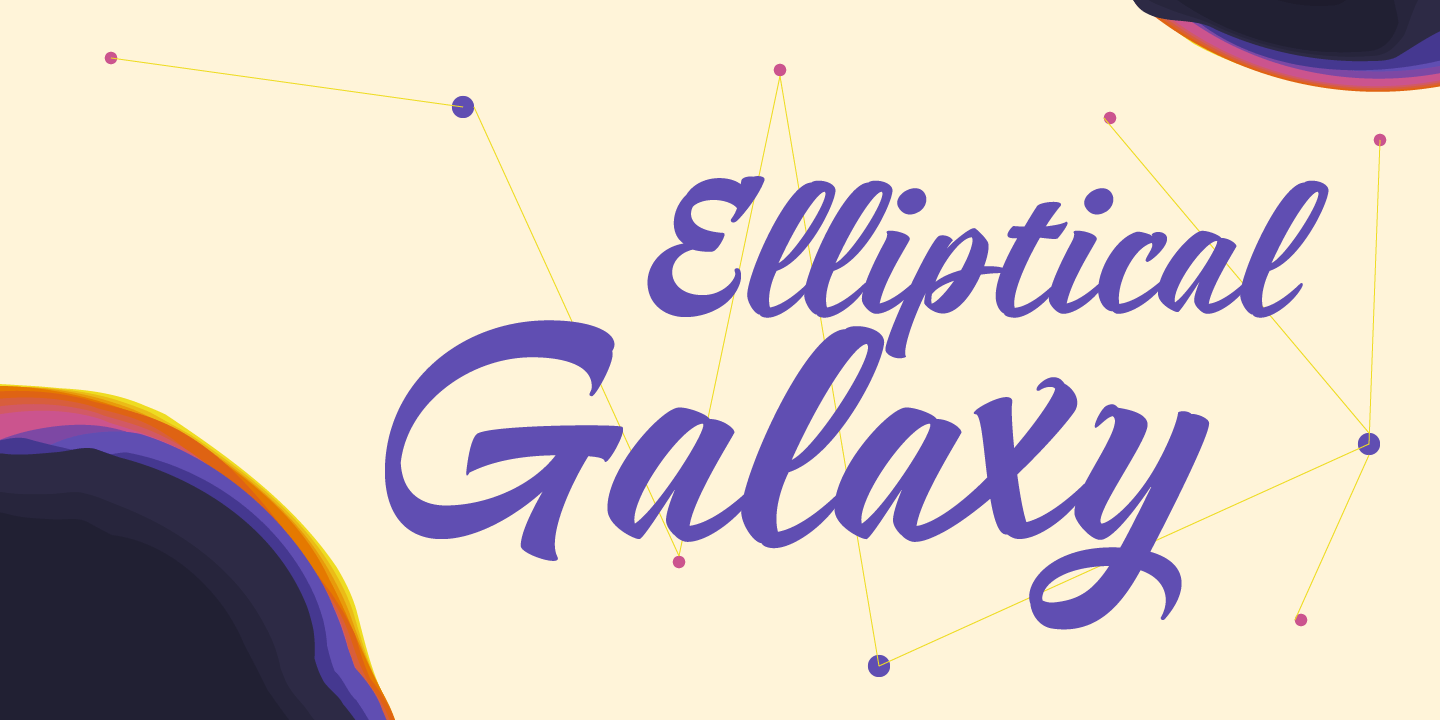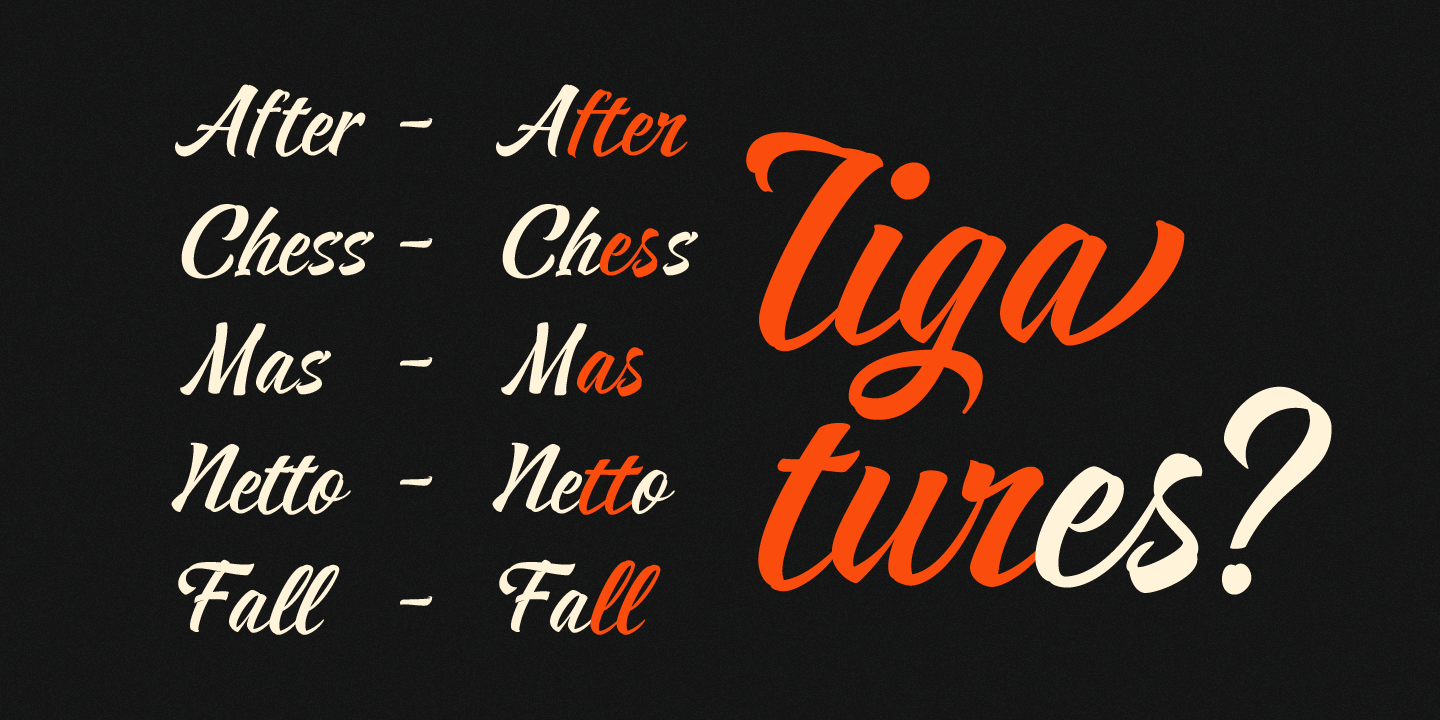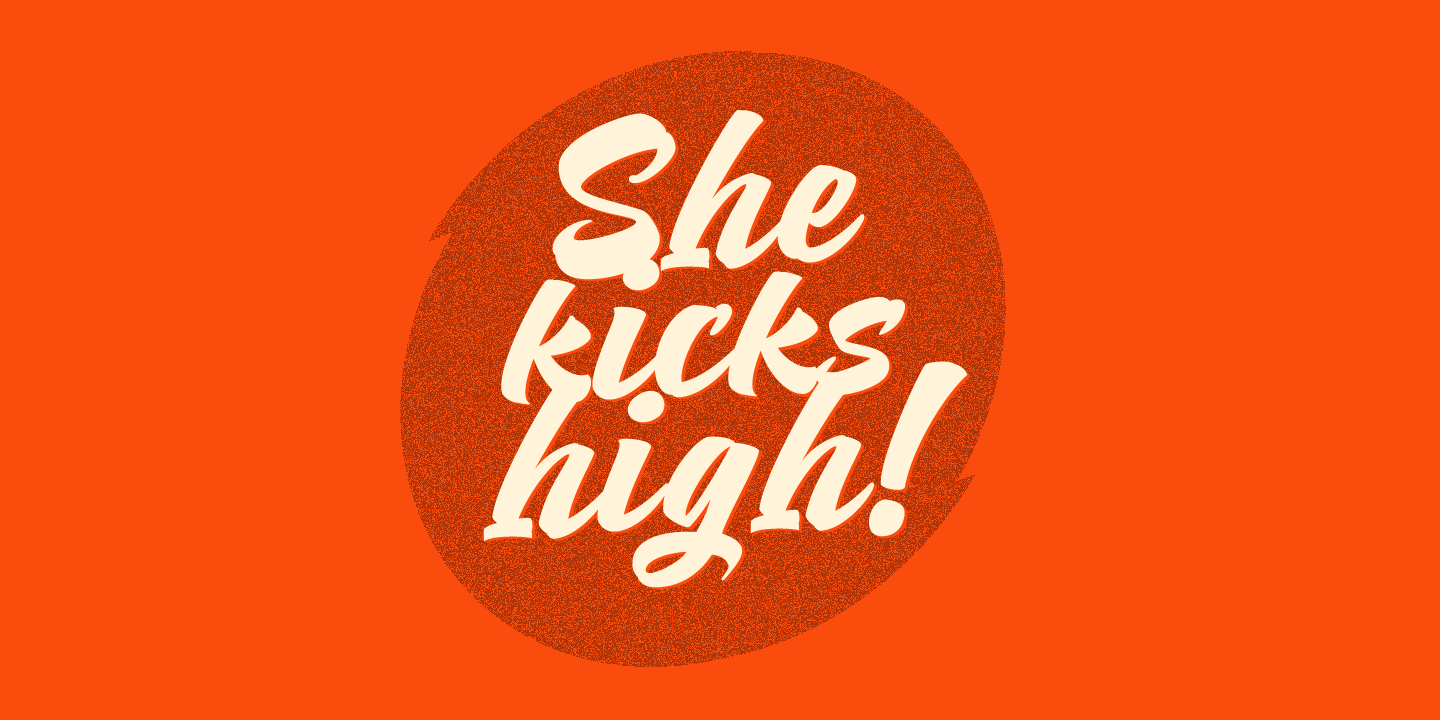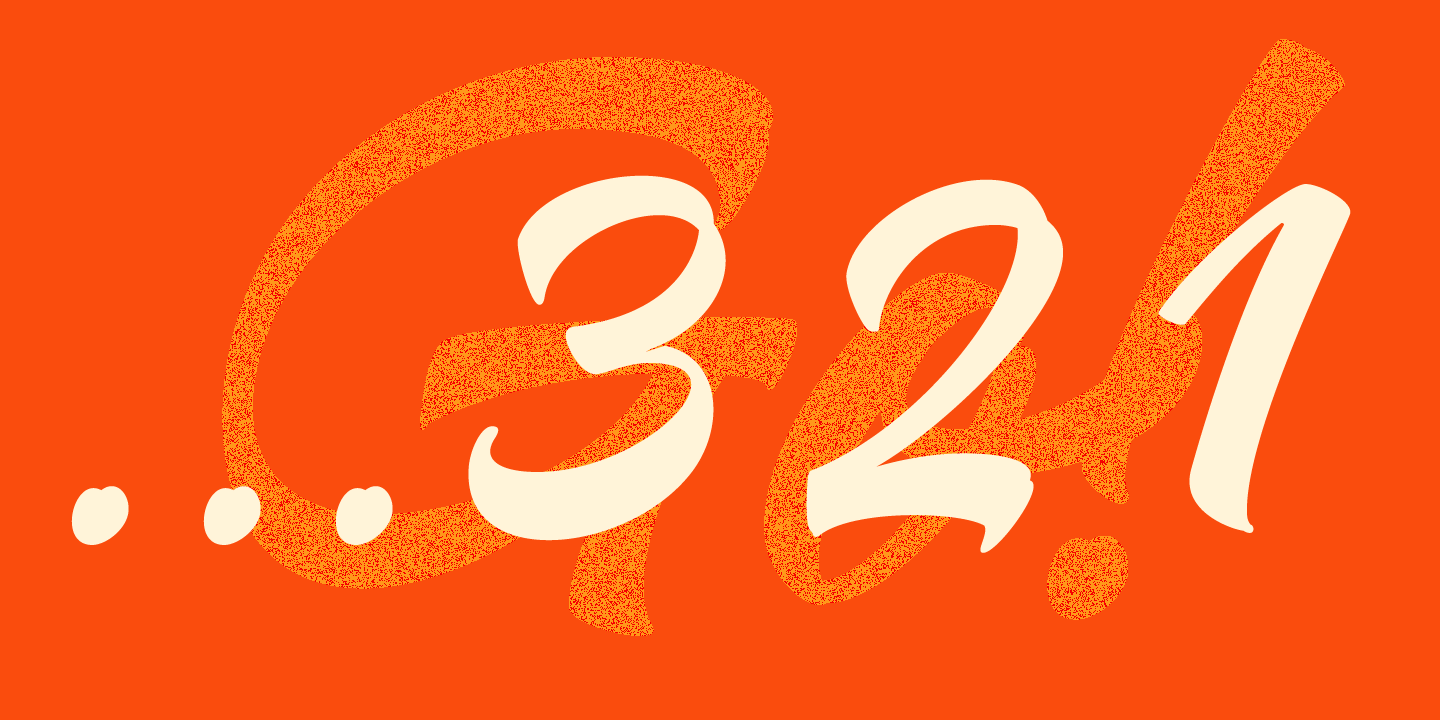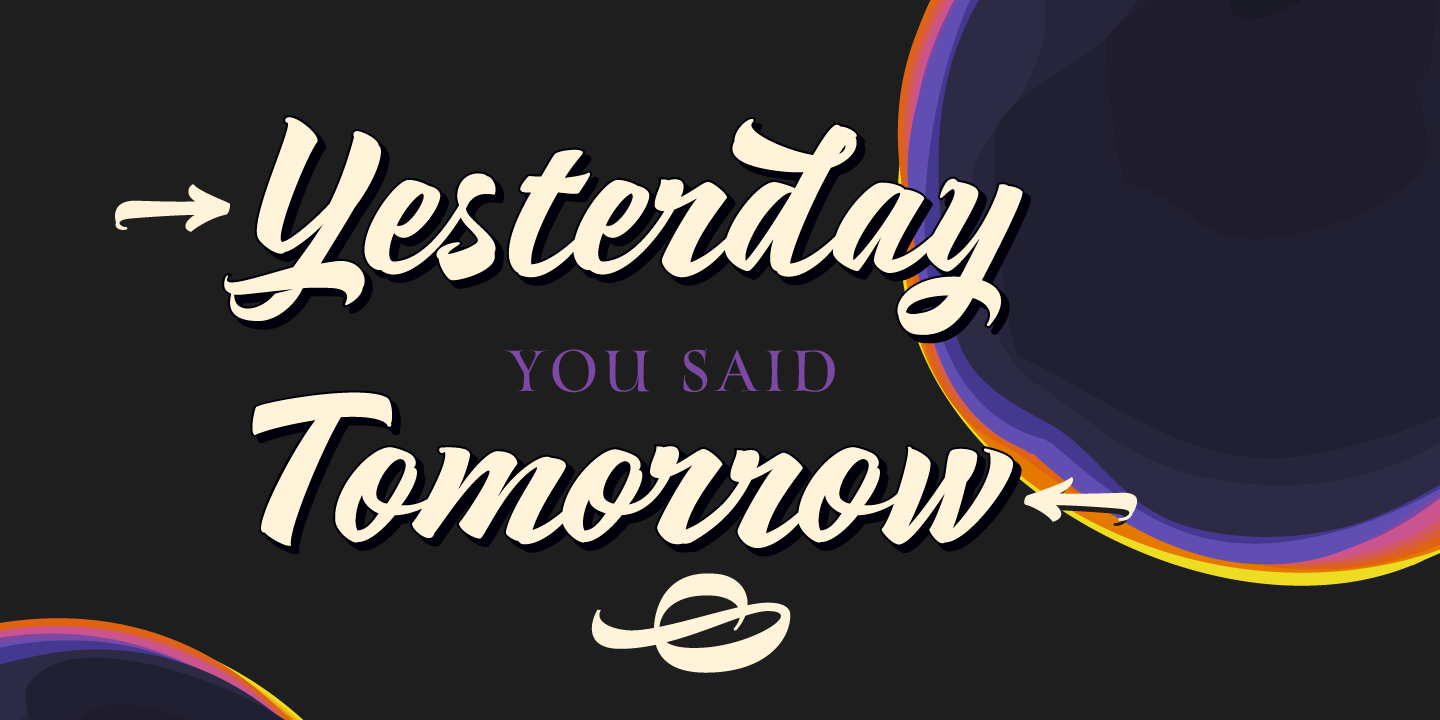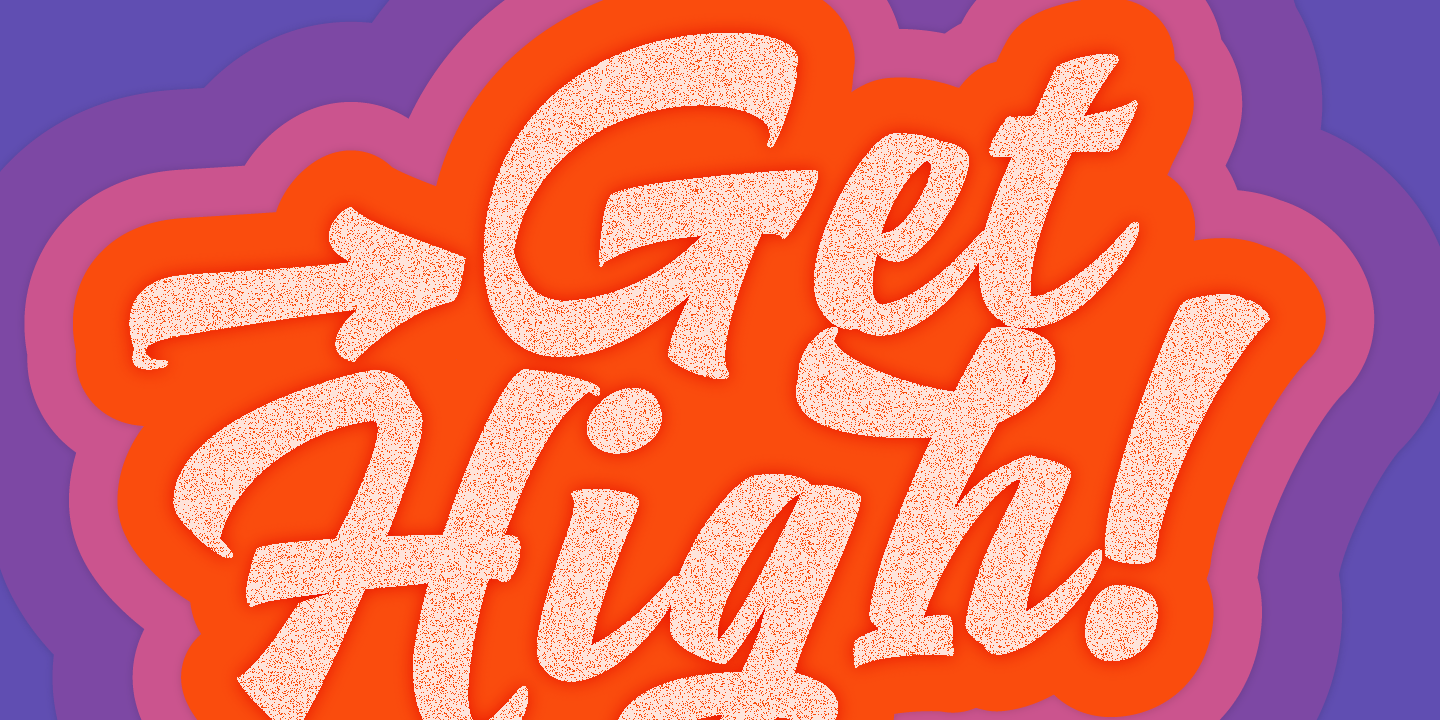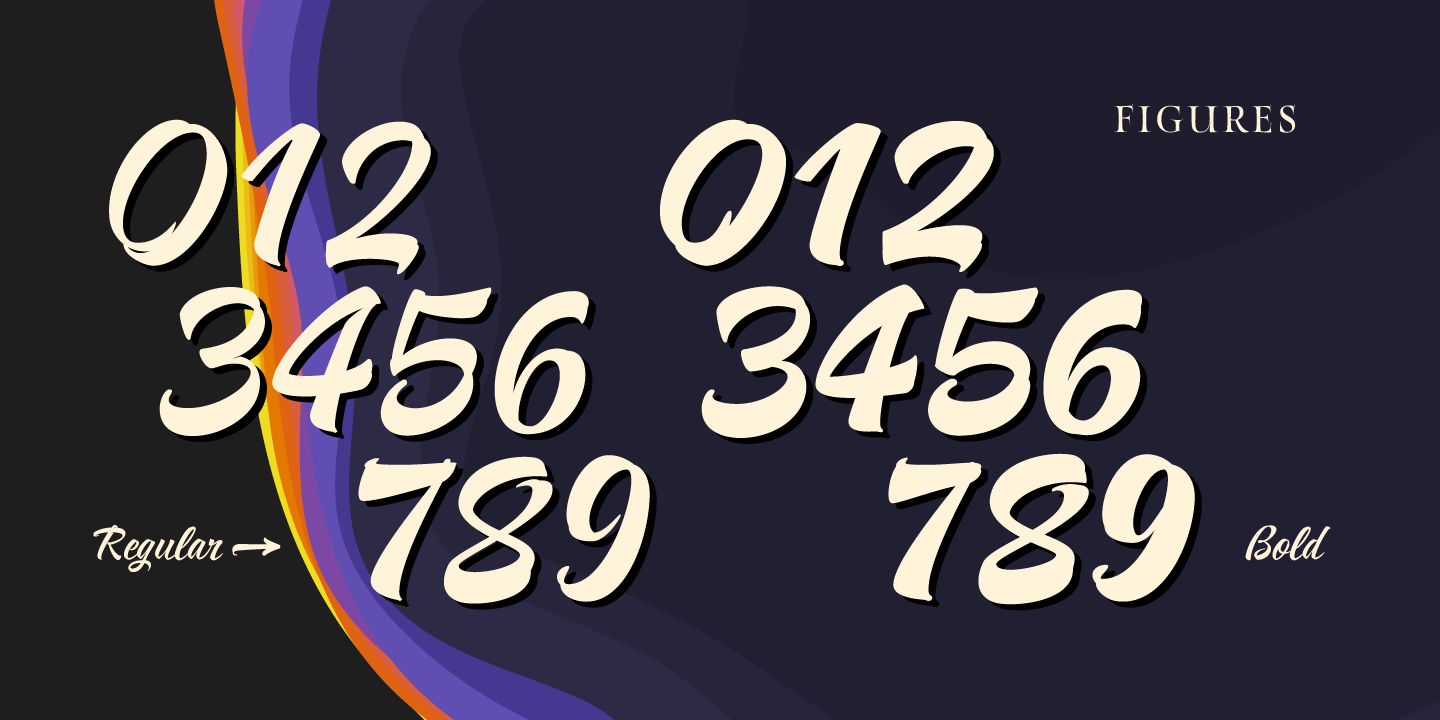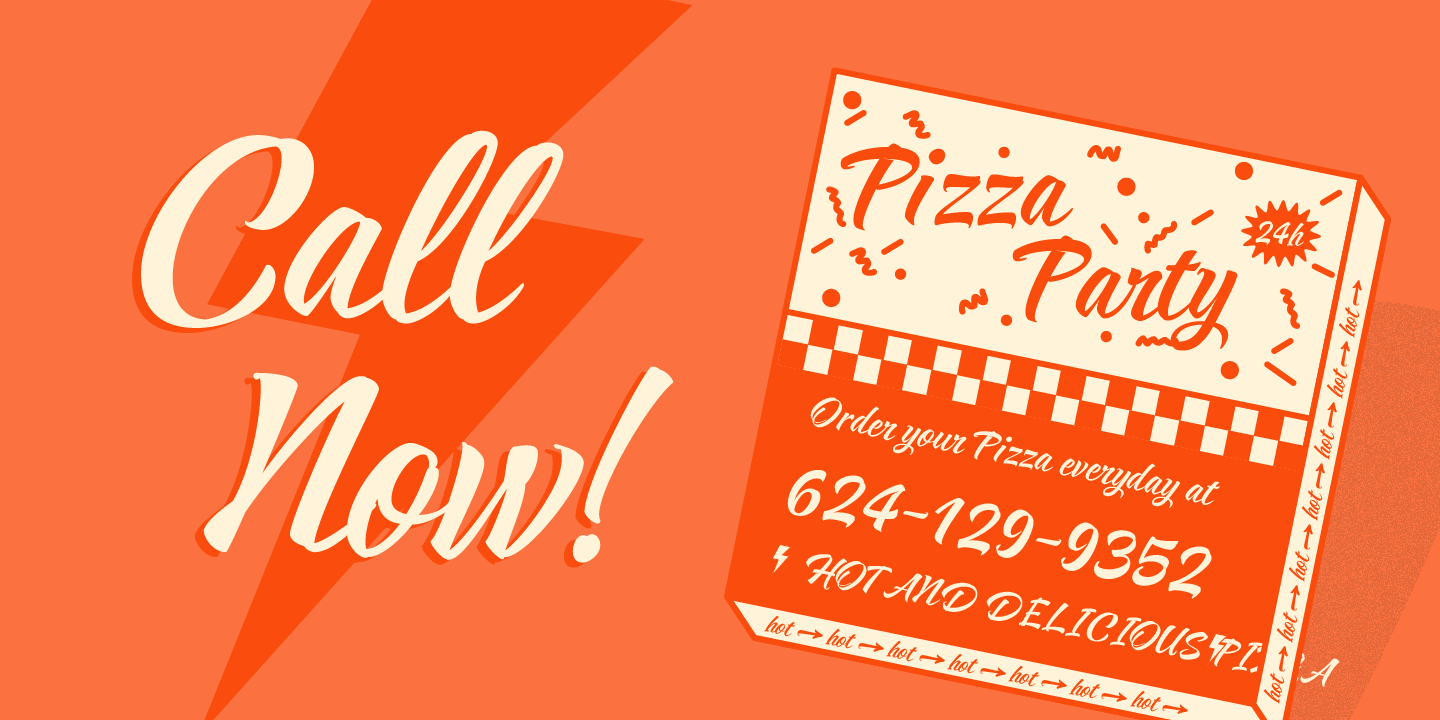
About Respect
Respect! Our tribute to hand lettering culture. This exuberant new script font family draws inspiration from the traditional craftsmanship of sign painting and brush pen calligraphy techniques. Our aim was to create a modern interpretation of brush script,…